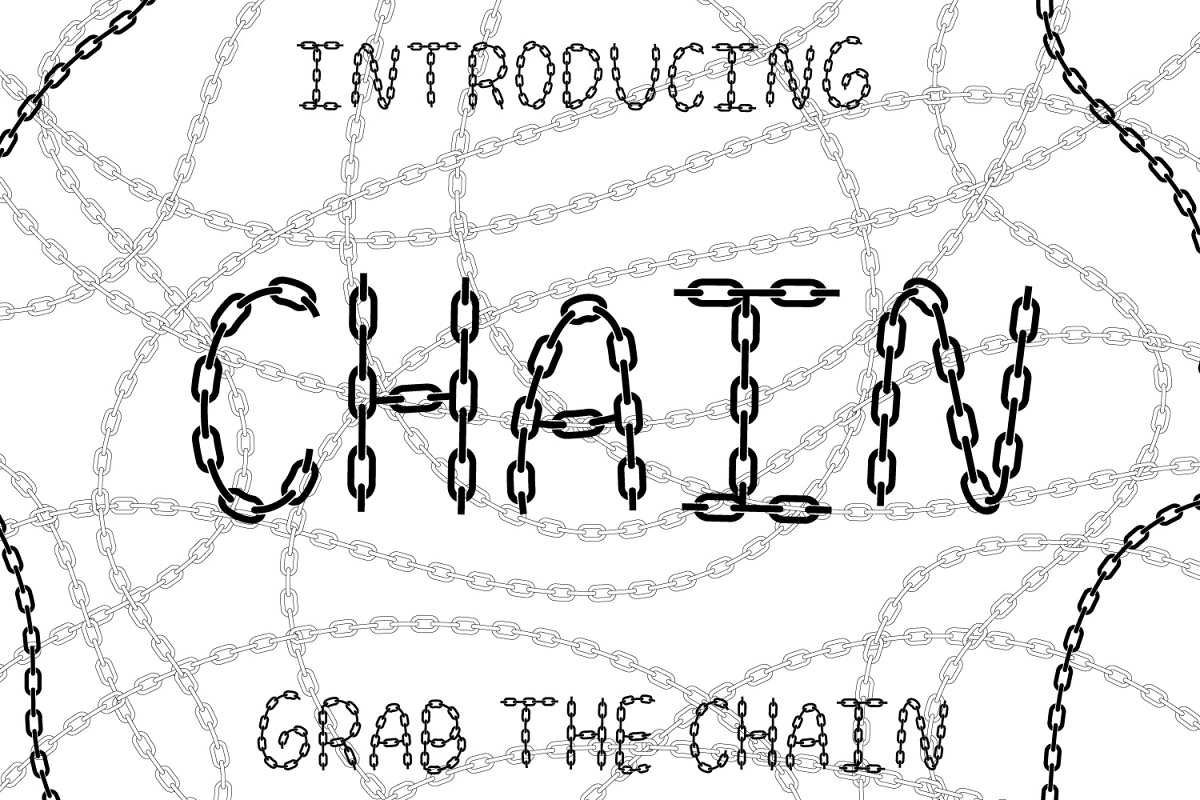
Chain Font example image 1
Handmade chain font for your next project, Perfect for kids parties, Halloween, events and fun project. You can use it for many purpose. Its made with care and you can see the preview above and type to see your name below.
3- Cool and Fun event font